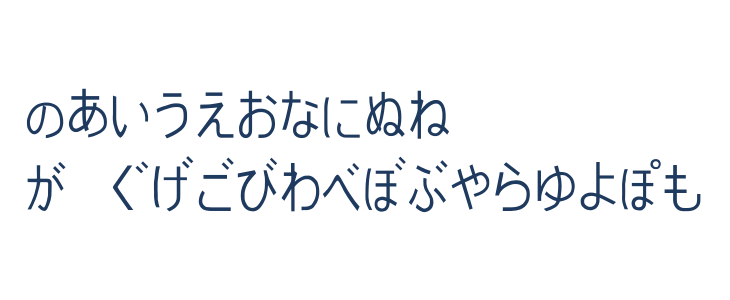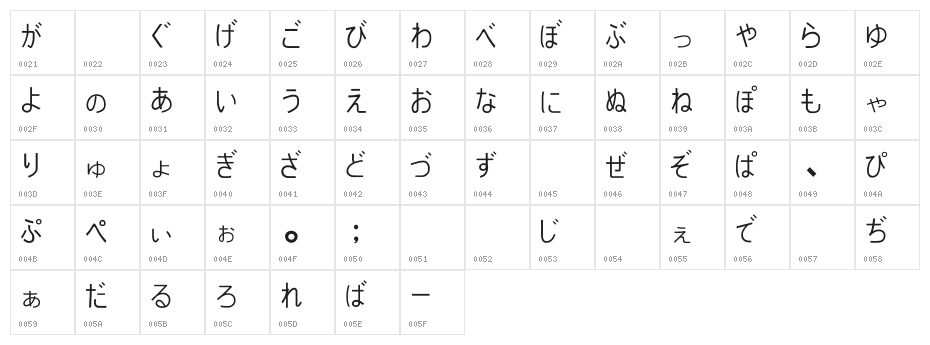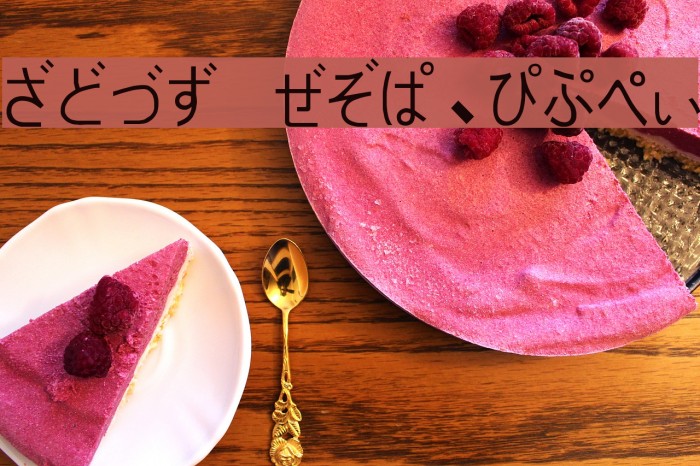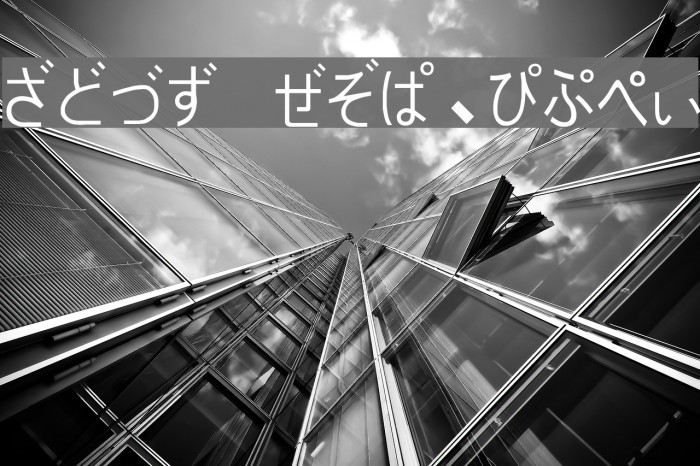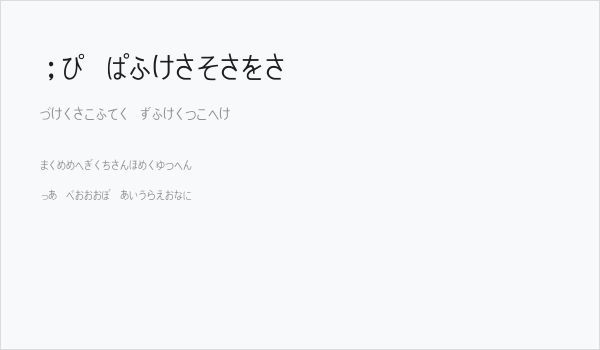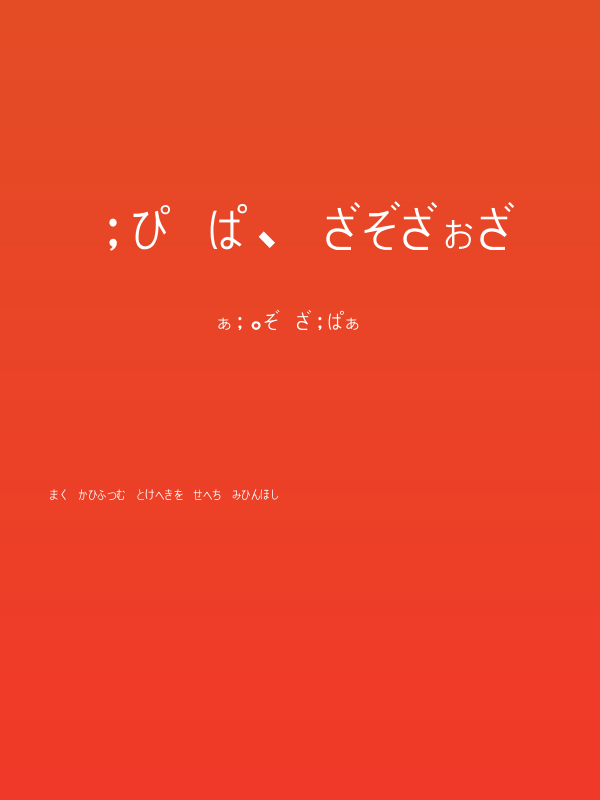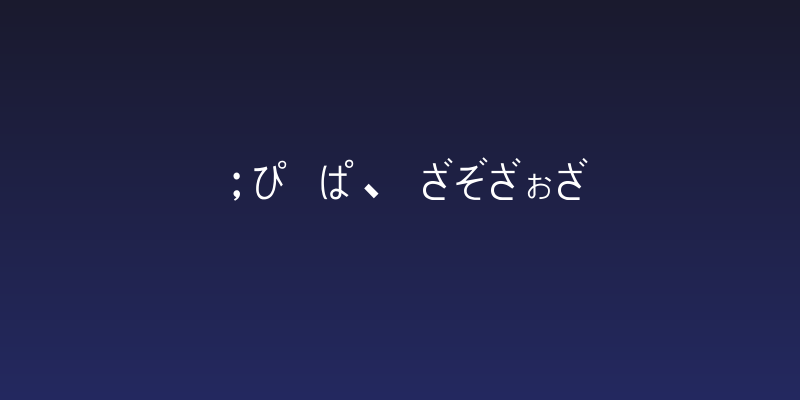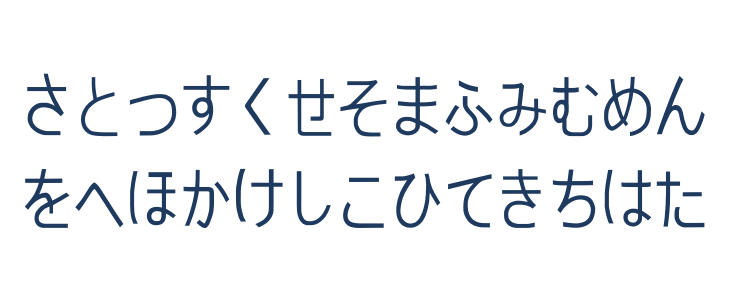
PJ Hiragana Font
PJ Hiragana Description
This font features a clean and modern design, characterized by smooth curves and balanced proportions. The strokes are consistent in weight, providing a harmonious appearance that enhances readability. The characters are well-spaced, ensuring clarity and legibility across various sizes. This font's simplicity and elegance make it suitable for a wide range of applications, from digital interfaces to printed materials. Its modern aesthetic is complemented by a subtle touch of traditional style, making it versatile for both contemporary and classic projects.
Use CaseBody text, Educational materials, Branding
Proposed ProjectsIdeal for digital interfaces, educational materials, branding, and signage.